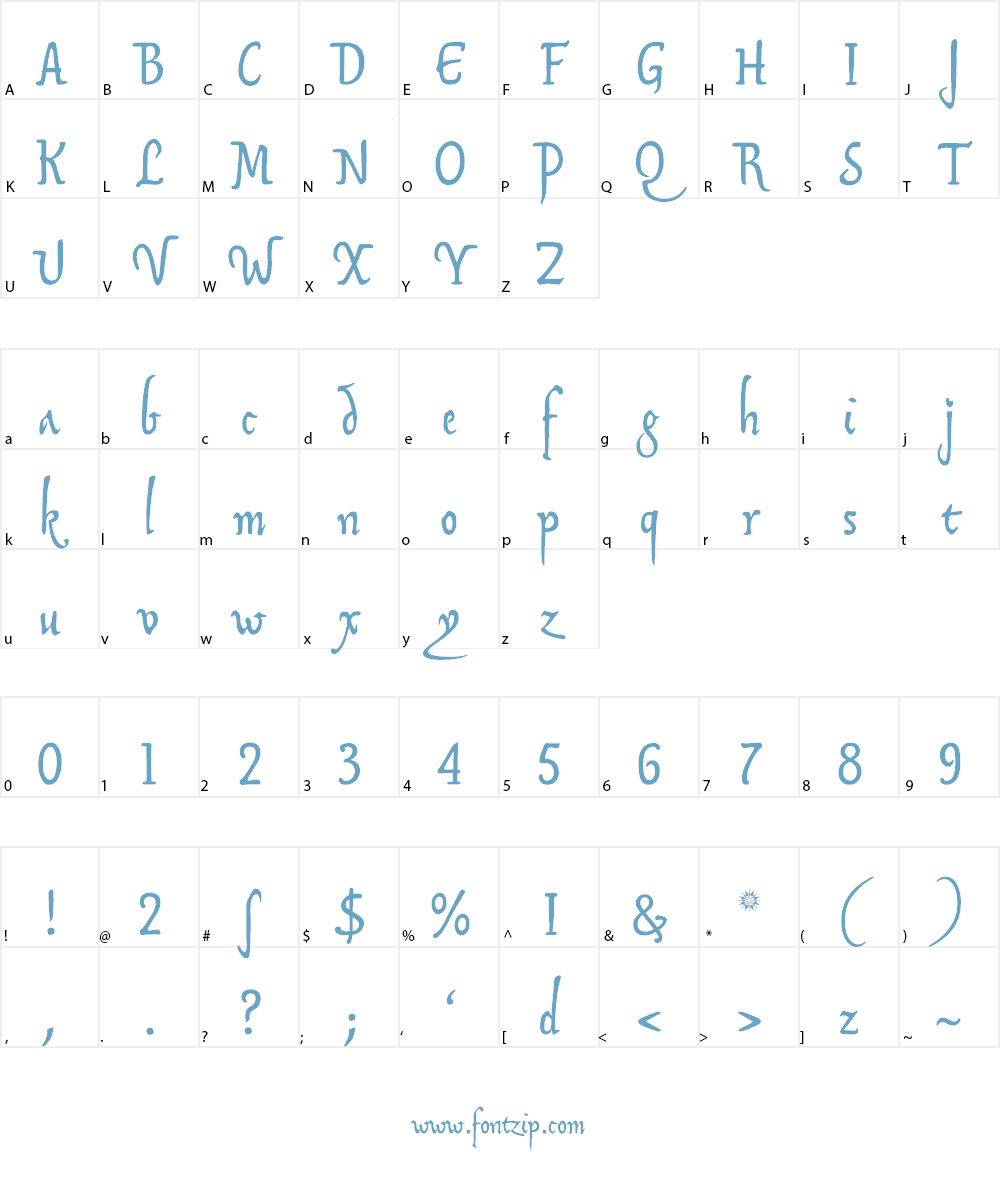
This font is based on the handwriting of Giovanni Borgia/Joan Borja, duke of Gandia, who was the son of a pope and the grandfather of a saint, member of a much-decried family, and founder of a most pious one. Having been sent to Spain, to marry, in 1493, the widow of his deceased brother Pedro Luis -- Maria Enriquez, a cousin of king Ferdinand of Aragon --, and take possession of the Spanish dukedom said brother had left him, he corresponded a lot with his father back in Rome. It seems his father had much to complain about. Not only did Giovanni spend tons of cash to manage, enlarge, and aggrandize his Spanish possessions, but there were also reports that he had not consumed his marriage, didn't share his wife's bed, and was wont to roam the streets at night, in search of questionable entertainments. On 4th December 1493, Giovanni wrote a letter to justify himself in the matter, calling all such reports slander, protesting that he was in love with his wife, and had spent every night in the nuptial bed, except on one occasion, when it had been prevented by a social engagement of the most innocent nature.
Those reports seem to at least partially have been slander. When he was ordered back to Rome, in 1496, Giovanni had already had a son by Maria Enriquez, and she was expecting a second child. However, the one thing he can surely be reproached with, is that he got himself assassinated, in a highly stupid manner ... by doing what he had sworn in his letter that he didn't do, i.e. roam the streets at night, "to go amuse himself". At Rome, no less. Which was a hotbed of Borgia enemies. After he had been missing for some days, his corpse was fished out of the Tiber river, mid-June of 1497, leaving no doubt that he had already been dead when he entered the water. He had been twenty-one at best. Nobody was ever brought to justice for the deed. His father was devastated, his wife never remarried, and entered a convent when their son came of age, and his son carried on in the Spanish dukedom of Gandia, maybe well traumatized by what he had been told about that murder; for nothing short of an angry mob attacking, could induce him to leave his home. Nevertheless, he ended up with about twenty children there, from two subsequent marriages ... among them Saint Francisco Borja.
An image of the first page of Giovanni's autograph letter is displayed on the website of the Institut Internacional d'Estudis Borgians, and, considering that Giovanni was seventeen when he wrote it, it struck me as remarkable. His handwriting is never flashy, very matter-of-fact, and rather condensed, but it shows an amazing sense of harmony and proportion. This is certainly not a spoiled brat's hand; in fact, it looks quite mature, and tells at least of a first rate education. Then again, it has been said that Giovanni's mother came from a family of artists -- perhaps his talent had been passed down with the genes.
Well, after falling in love with Giovanni's ls, at first sight, I made the font. Since the image is rather low resolution, my font is no exact copy of Giovanni's writing, and altogether I decided to keep it as much on the 'modern' side as I could. For example, I didn't go along with the room-taking bows at the the end of his hs, and chose a rarely used y that doesn't look too exotic for 21st century eyes. I thought it didn't matter much, since, anyhow, I had to invent a lot of other stuff. Indeed, my only complaint with Giovanni Borgia is that he was so shy of capitals. Apart from the initial A, I could only find a V, an S, and something that might do as an E (though it isn't one). All the other capitals are made up, as well as the k.
I've included my own rendition of the Borgia arms on the micro sign, designed according to what I learnt on the Net, and remembering an image on the cover of a Borgia book by Susanne Schüller-Piroli, where the escutcheon takes the form of a heart. Based on a mistaken etymology, the bull has been the heraldic sign of the Borgia family for centuries. And -- BTW -- let's suppose that it wasn't just because of this that Saint Francisco Borja took a decided dislike for the Spanish custom of bull-fighting (which was rather unusual in someone born at the beginning of the 16th century, when torturing animals was a popular entertainment all over Europe -- you may even find references in Shakespeare). Anyhow, in his latter years, Francisco Borja persuaded the then pope to send a Papal Bull (if this is a pun, history made it) to the Spanish King, forbidding bull-fights, as an entertainment "more fit for demons, than humans", and threatening heavy penalties for persisting. This Papal Bull was duly read, meekly accepted, and diligently distributed to the local authorities in order to be enforced by them.
The font was called SonOfTime as a reference to Josephine Tey's novel The Daughter of Time -- because, while collecting background information on my font, I got somewhat upset by all the scandalmongering gossip that is still dished out as historical fact, concerning the Borgia family. The Net is full of it, in every sense of the word. There are only two notable exceptions, first the website of the Institut Internacional d'Estudis Borgians -- as was to be expected --, and secondly Rafael Sabatini's book on The Life of Cesare Borgia, which will be hundred years old, come 2012. Sadly, it seems to have been no more efficient than the Papal Bull forbidding bull-fights. Of course, it's far less entertaining than Josephine Tey's witty approach to her subject, but at least Sabatini went for the sources, and did his best to show their credibility (or lack thereof). Well, perhaps this was to be expected, too. Who would care for boring truths, when delicious scandal is to be had instead?
On the number sign of the SonOfTime font, you'll find the usual long s. The other special characters are
an alternate y on the 'bar' and 'broken bar' sign.
an alternate d on the left bracket
an alternate z, sitting on the line, on the right bracket
an alternate k on the left curly bracket, This is an important alternative, since the regular k is at war with the regular y, even when there is a space or another character between them
an alternate r on the right curly bracket. It's the one that is most frequently used in the letter, but somehow it didn't cooperate well with the other characters of the font.
an alternate I on the ASCII circumflex (don't forget to press the space bar)
a double long s on the long s sign
Two frequently used abbreviation signs, meaning 'que' and 'per', on the fi and fl signs. In case those aren't reachable on your computer, please try the masculine and feminine ordinal indicators, or the 'less-than or equal to' and the 'greater than or equal to' signs.